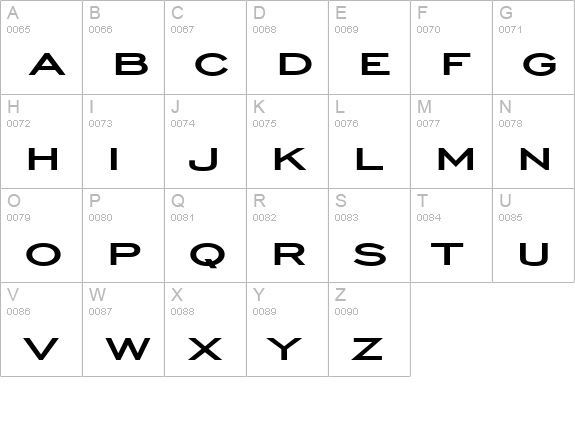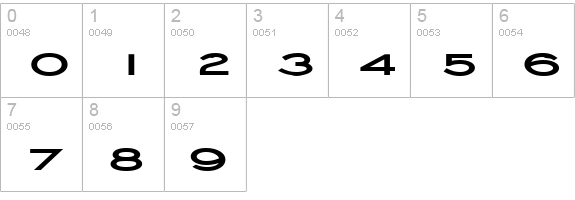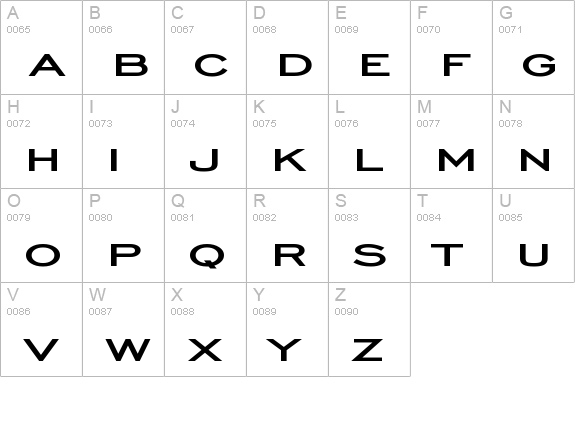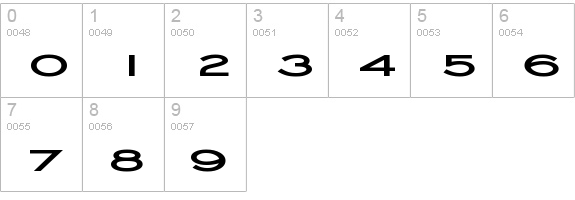
Chisel Extended Bold is a strong, high-contrast, extended-width variant in the Chisel typeface family \xE2\x80\x94 well suited to headlines, attention-grabbing titles, and strong calls-to-action.
Chisel Extended Bold is a striking and bold typeface that exudes strength and modernity. With its sharp edges and clean lines, this font is perfect for making a bold statement in your designs. Whether you're creating a poster, logo, or heading for a website, Chisel Extended Bold will grab attention and convey a sense of power and confidence. And the best part? Chisel Extended Bold is available for free download at FontsMarket.com! So you can easily add this versatile and eye-catching font to your collection without breaking the bank. Don't miss out on the opportunity to enhance your designs with this impactful typeface today.